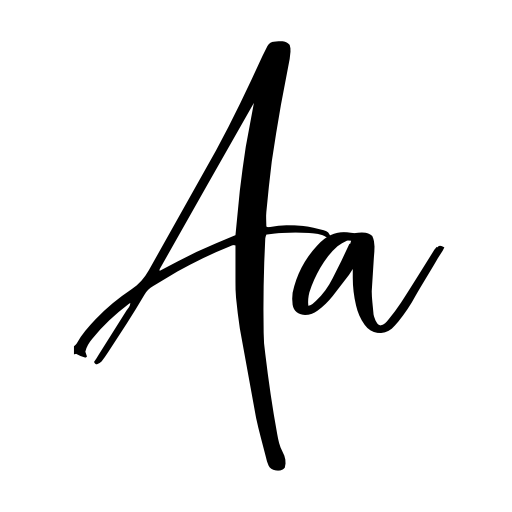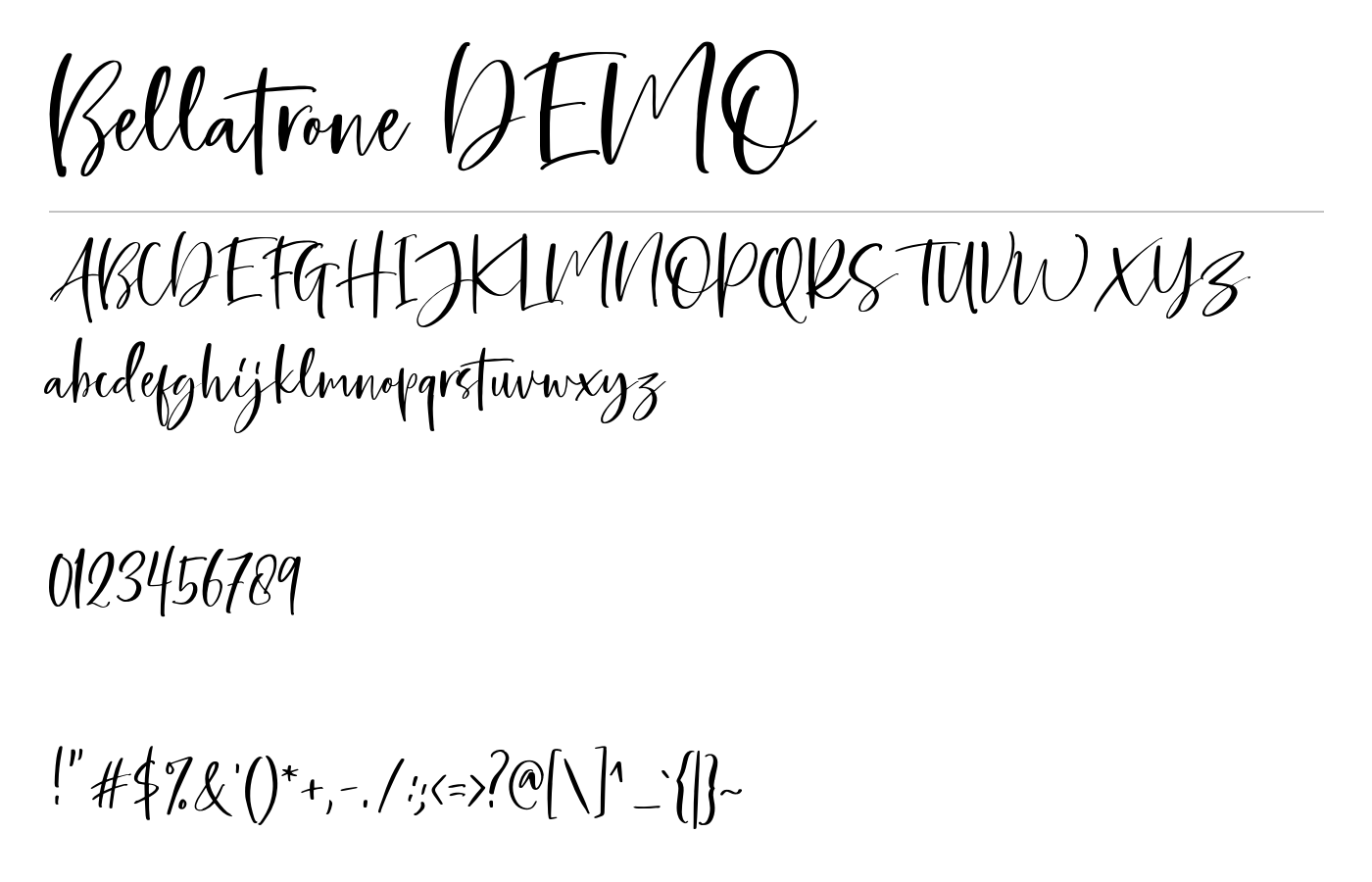
Bellatrone DEMO is a lively, modern script font with a hand-drawn feel, featuring tall, slender letterforms and graceful, flowing strokes. Its elegant yet casual style, combined with a distinct variation in line thickness, makes it perfect for creative branding, personal invitations, and stylish headlines that seek a touch of sophistication without rigidity. This font shines in designs that want to convey warmth, personality, and artistic flair.
Bellatrone DEMO Font
About Bellatrone DEMO Font
| Font family | Bellatrone DEMO Font |